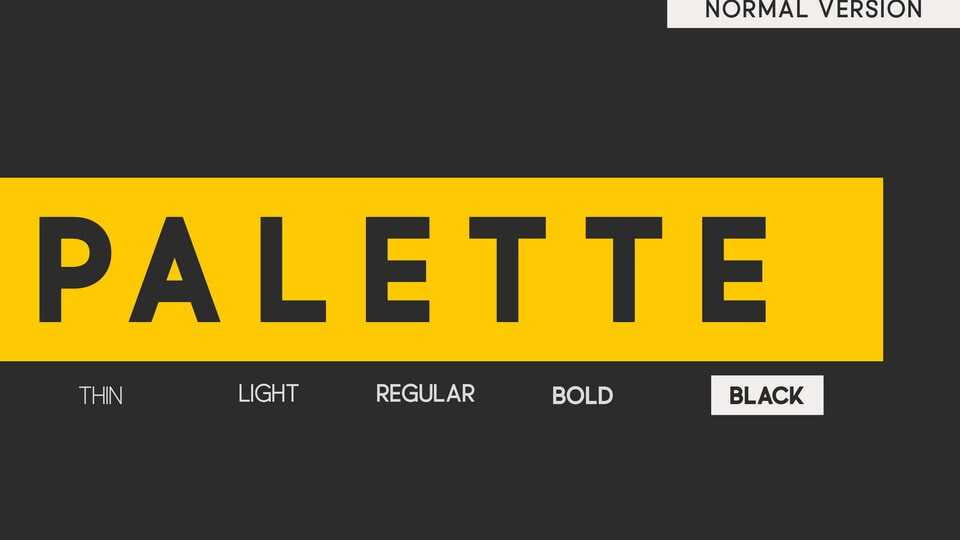
Download Palette font, a sans serif typeface, an embodiment of elegance and minimalism. Crafted with utmost precision, it effortlessly enhances any project, whether it be a magazine, logo, or film poster.